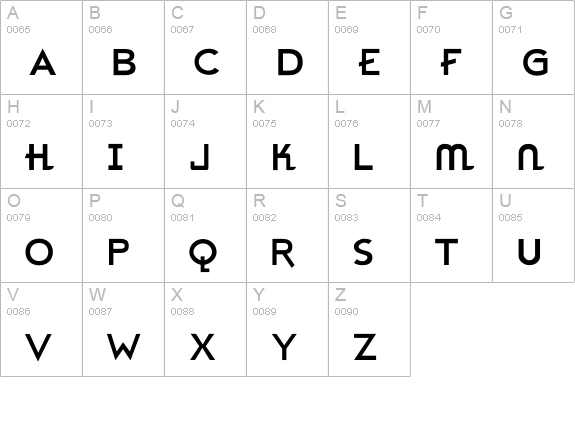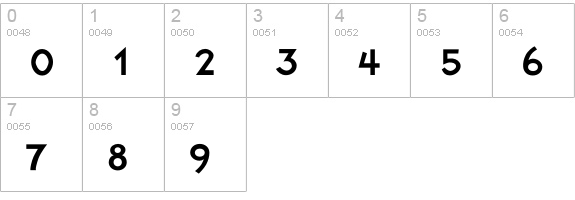
Parkway-Motel Font Details
Introducing Parkway-Motel font, a captivating and versatile typeface that exudes a timeless charm and pays homage to the classic roadside motels of yesteryears. Evoking a sense of nostalgia, this font effortlessly captures the essence of retro aesthetics, making it the perfect choice for various creative projects. Parkway-Motel font is a true gem in the world of typography, offering a unique blend of boldness and elegance. Its meticulously crafted letterforms reflect the iconic neon signs and vintage advertisements that adorned the highways, inviting travelers to rest and rejuvenate during their journeys. With its wide range of stylistic alternates and ligatures, Parkway-Motel font allows you to effortlessly create custom designs that truly stand out. Whether you're working on branding, packaging, signage, or any other creative endeavor, this font is sure to elevate your project to new heights. One of the most remarkable features of Parkway-Motel font is that it is freely available to download at FontsMarket.com. This means that you can access this stunning typeface without any restrictions or limitations, making it a fantastic choice for designers, artists, and enthusiasts alike. Embrace the retro allure and embark on a typographic journey with Parkway-Motel font. Its seamless integration into your designs will not only evoke a sense of nostalgia but also add a touch of sophistication and character. Download Parkway-Motel font today from FontsMarket.com and let your creativity flow with this exceptional typeface.